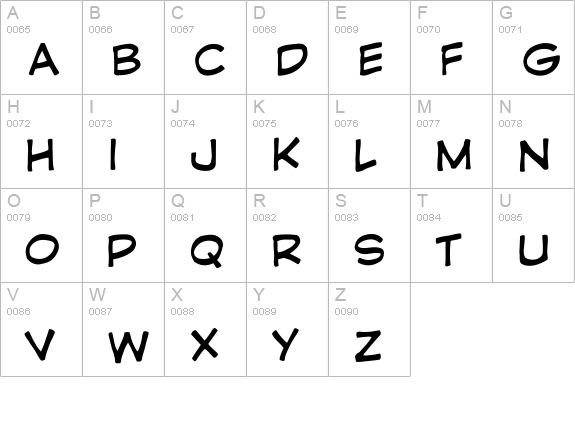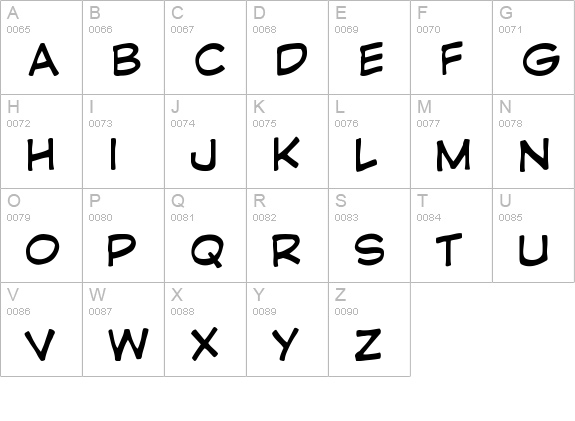
CCComicrazy-Roman Font Details
CCComicrazy-Roman is a playful and whimsical font that brings a fun and energetic vibe to any design project. With its bold and quirky appearance, this font is perfect for adding a touch of humor and creativity to your work. Whether you're creating posters, invitations, or social media graphics, CCComicrazy-Roman is sure to make a statement. The best part is, CCComicrazy-Roman is available for free download at FontsMarket.com. So go ahead and unleash your creativity with this delightful and unique font today!